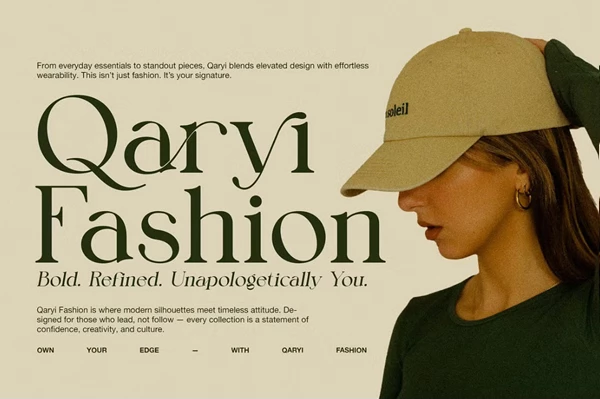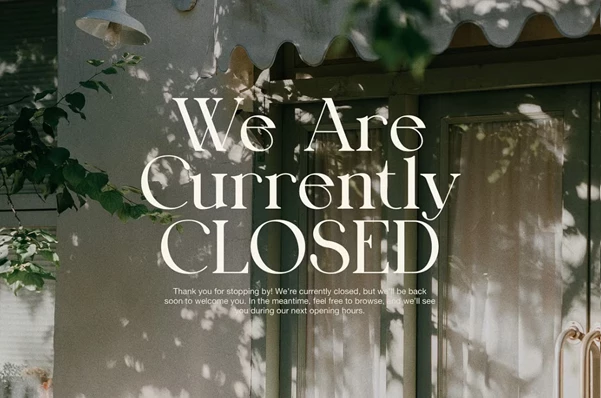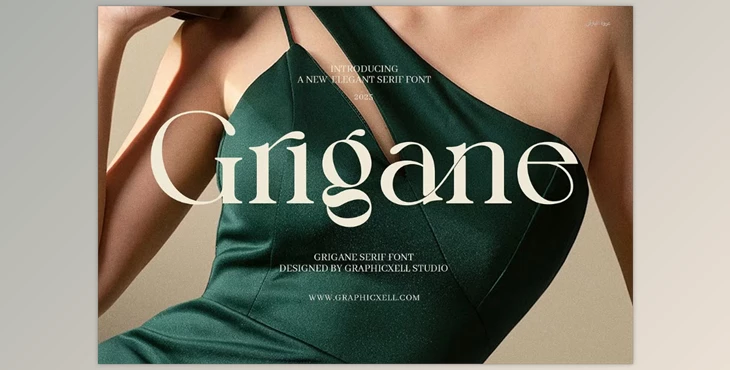
Grigane Elegant Serif Font:
Grigane Elegant Serif Font stands out with its classic touch and modern feel. It is finely designed such that it is aesthetically very pleasing due to the graceful ligatures and alternate characters. Ensuring to maintain subtle sophistication in design at every step, makes this elegant font ideal for all undertakings that require aesthetic pleasures as well as meticulous precision.
Grigane has been designed keeping in mind that it would be used for visual identity; thus, it is suitable for high-end branding, logo design, website headlines, fashion lookbooks, editorial paginations, and packaging of the product. The contemporary accent on Grigane's classic serif typeface differentiates it from the rest and makes sure that your designs stay timeless yet quite striking and attention-catching in the competitive world of visuals.
This typeface works wonderfully with minimalist and ornamental designs alike, which makes it ideal for boutique product labels, upscale menus, wedding invitations, and even sophisticated advertisements. With Grigane, your elegantly crafted designs sparkle with the right intention and reveal a refined testament of grace and style.
Rather than just a typeface, Grigane is a distinctive visual brand mark. Its balance of straight and clean cuts, along withsome decorative features, makes it one of the preferred serif typefaces for designers who want something sophisticated but not gaudy. Whether for self-marketing or branding, Grigane adds a touch of elegance and modernity that transforms the work into something unique and identifiable.
"Grigane Elegant Serif Font" Samples: